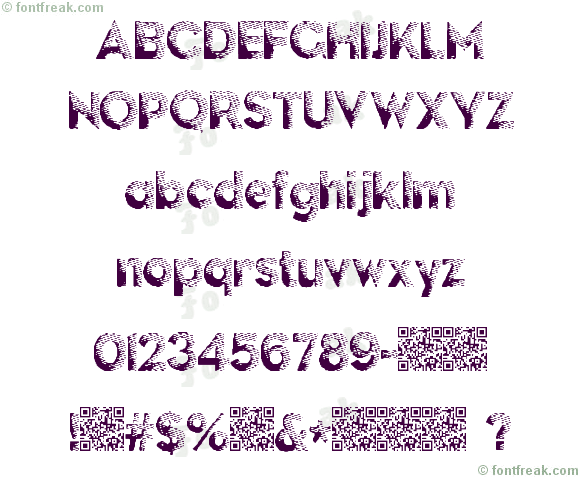
DarkPapers
About DarkPapers
DarkPapers by XEROGRAPHER FONTS is a unique display font that captures attention with its striking visual style. Released in 2015, this font embodies a blend of modernity and artistic flair, making it a standout choice for various creative projects. The characteristics of DarkPapers are defined by its varied stroke weights and distinctive contrast, which contribute to an eye-catching appearance. The spacing is carefully designed to ensure legibility, while the decorative elements add a touch of personality without overwhelming the text.
This font is ideal for a range of use cases, including movie posters where dramatic typography can enhance visual storytelling, as well as attention-grabbing headlines for magazines and websites. DarkPapers is also suitable for branding projects, particularly in fashion and art, where a unique typeface can set a brand apart. Additionally, it can be effectively used in restaurant menus to create an inviting and contemporary vibe, making it appealing to diners. Graphic designers, small business owners, and content creators will find DarkPapers font free download to be an excellent resource for their projects.
The target audience for this font spans various creative professionals who seek to make a bold statement through typography. Whether you are designing promotional materials or crafting an artistic layout, DarkPapers offers versatility and charm. Its ability to blend playful aesthetics with a professional finish makes it a valuable addition to any designer's toolkit. Ultimately, DarkPapers stands out for its unique character and adaptability, providing endless possibilities for creative expression in a world of typography.